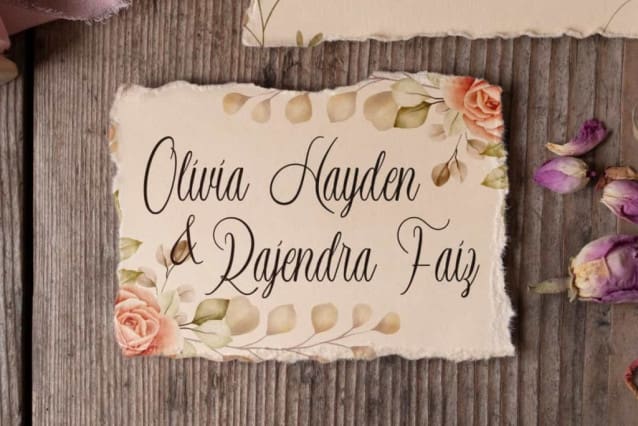
Rosella Aerous Font
Rosella Aerous Font is a nice calligraphy script font by VinType Studio. This font has romantic handwriting style with lovely flowing lines. It will be good for many designs, such as poster, invitation, brochure, cover, custom design, gift box, label, product packaging, quotes, screen printing, stationery, website, and more!
Rosella Aerous Font includes full set of Uppercase and Lowercase Basic Characters, Numerals, and Punctuation. This font also contain Ligature characters that will be suitable for many industries, such as fashion, florist, beauty product, advertisement, café, event or wedding organizer, furniture, handicraft, perfume, resort, restaurant, spa and salon, etc.